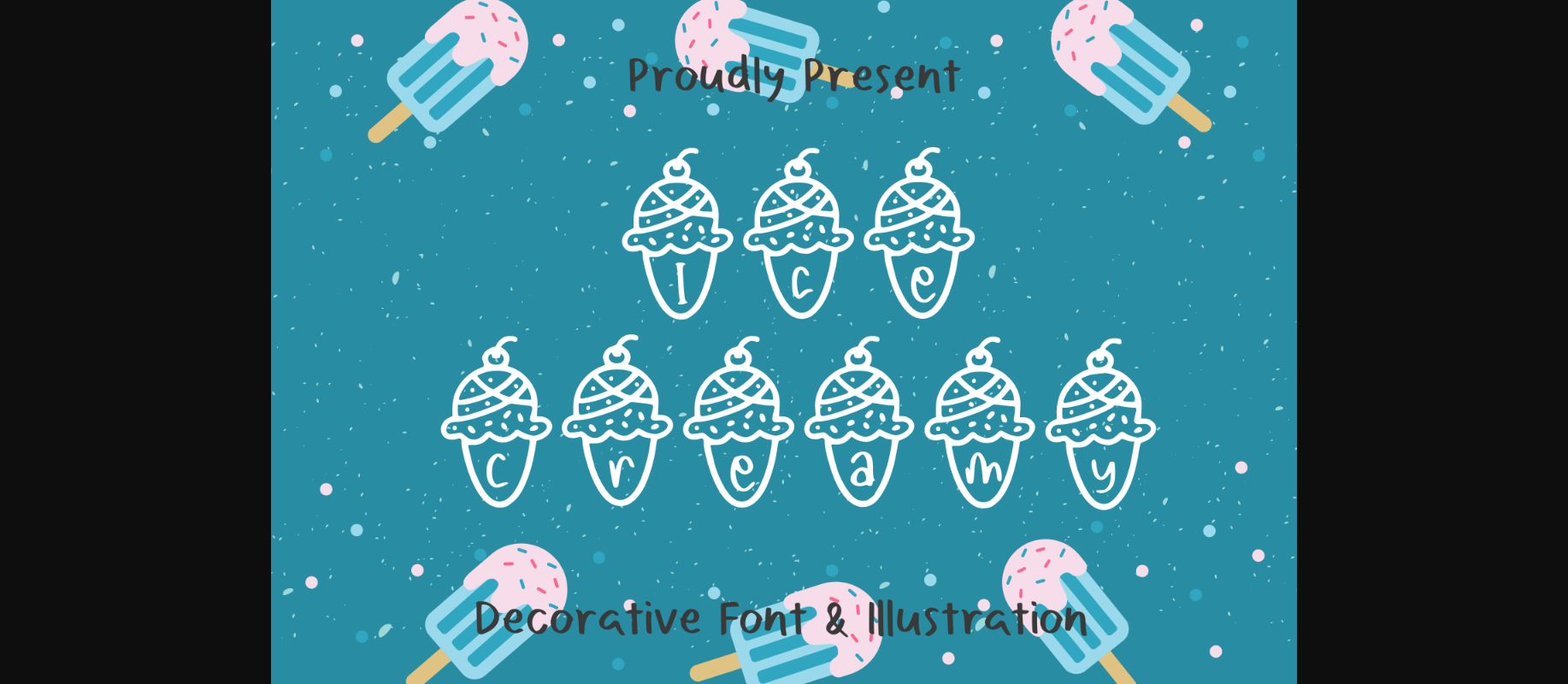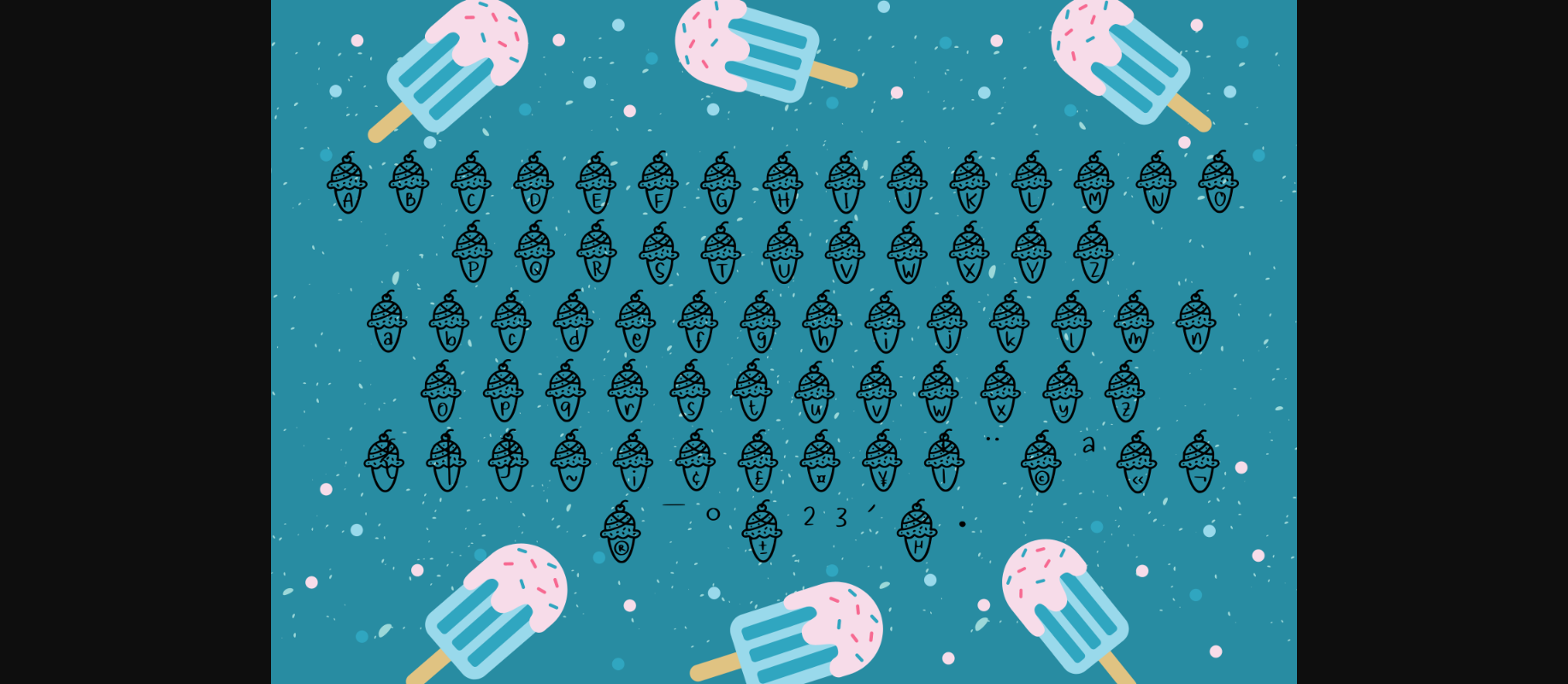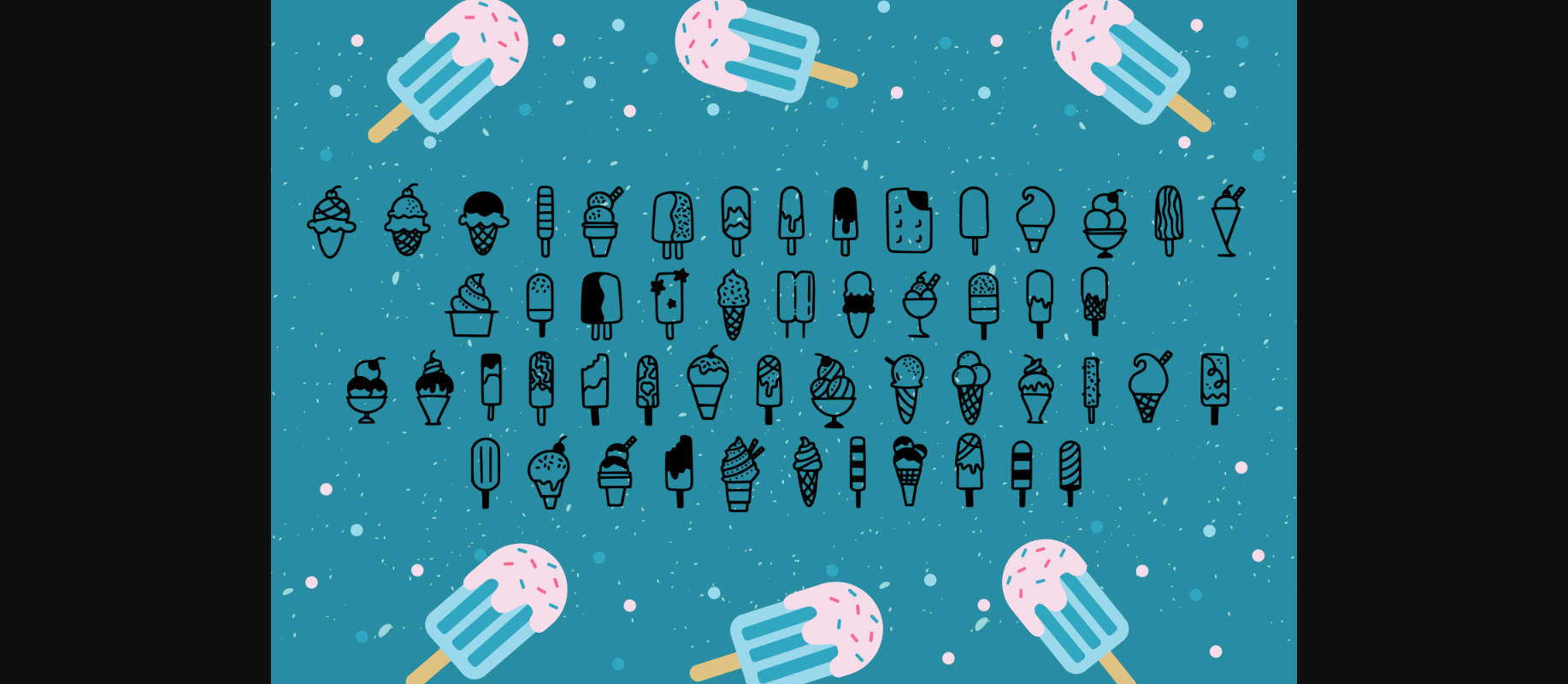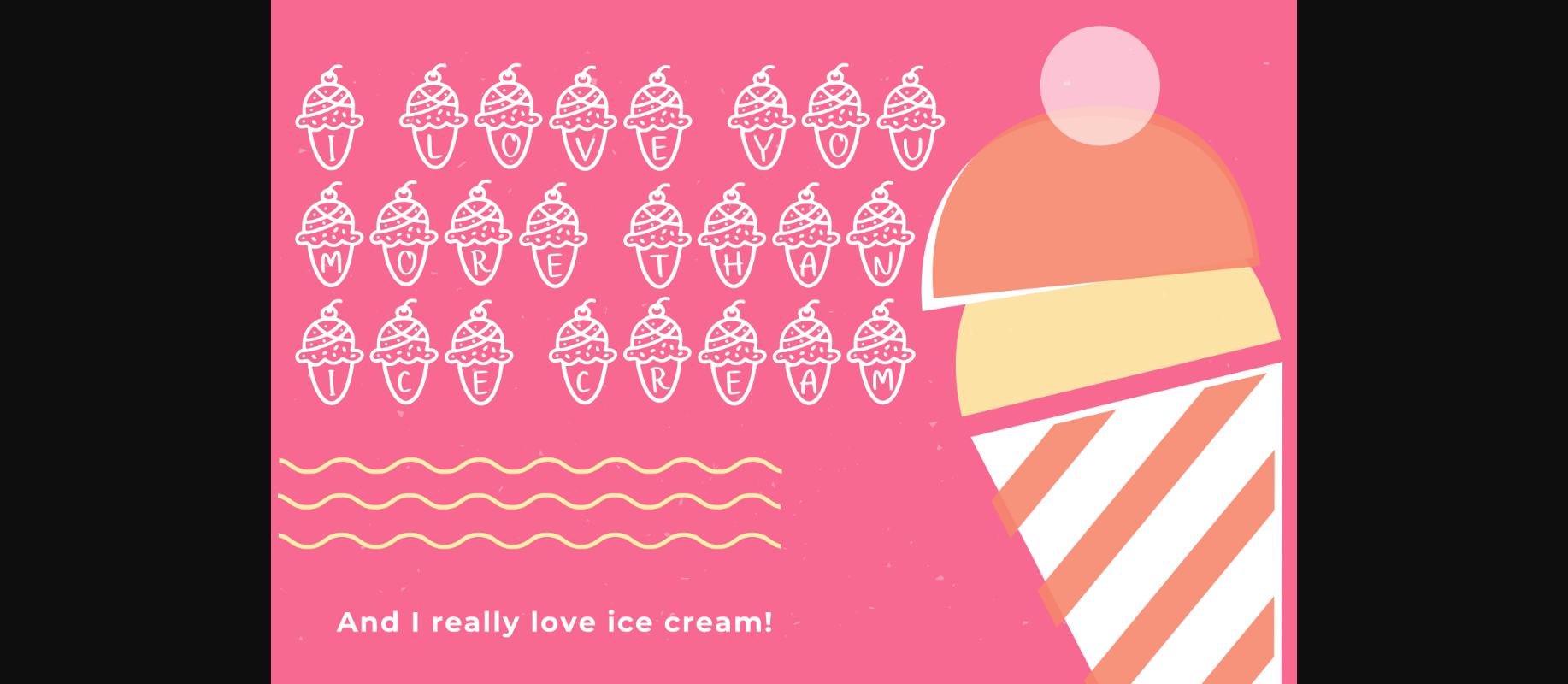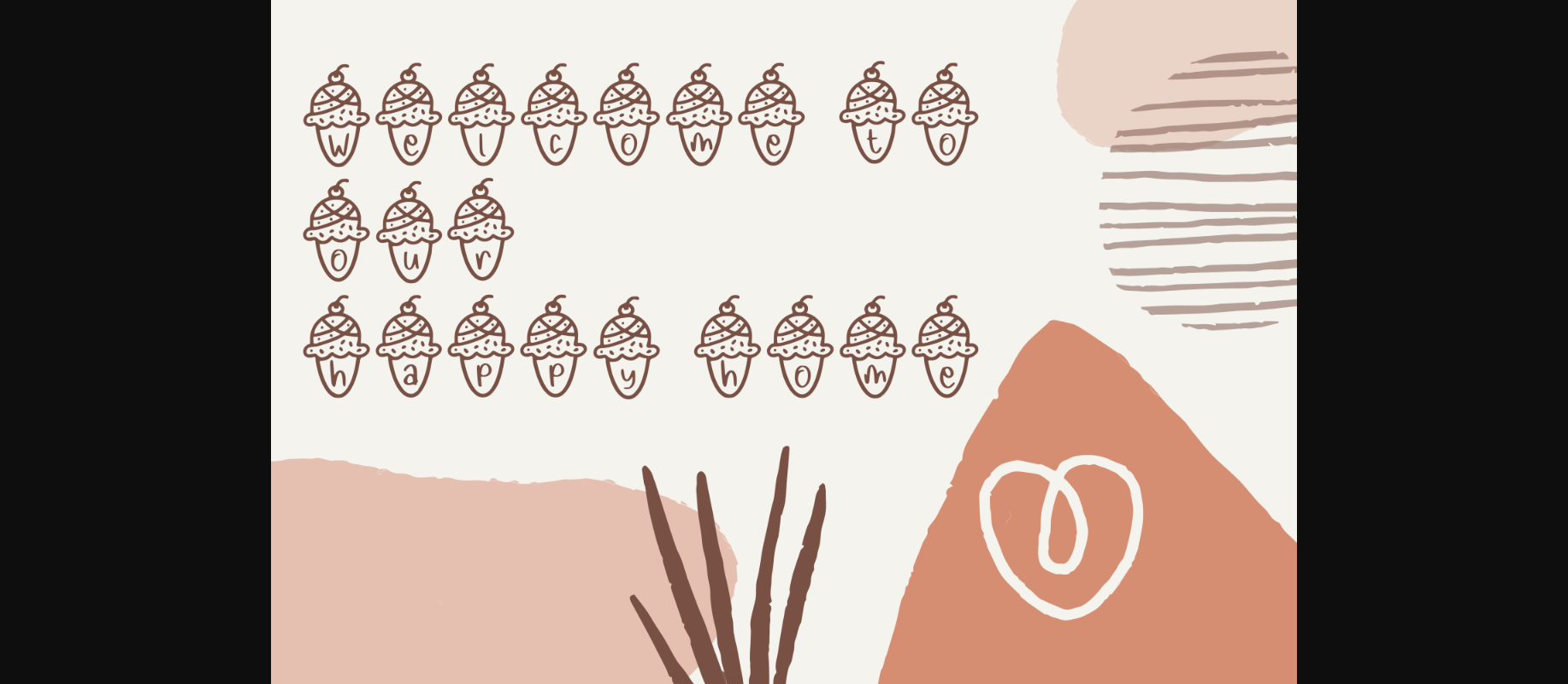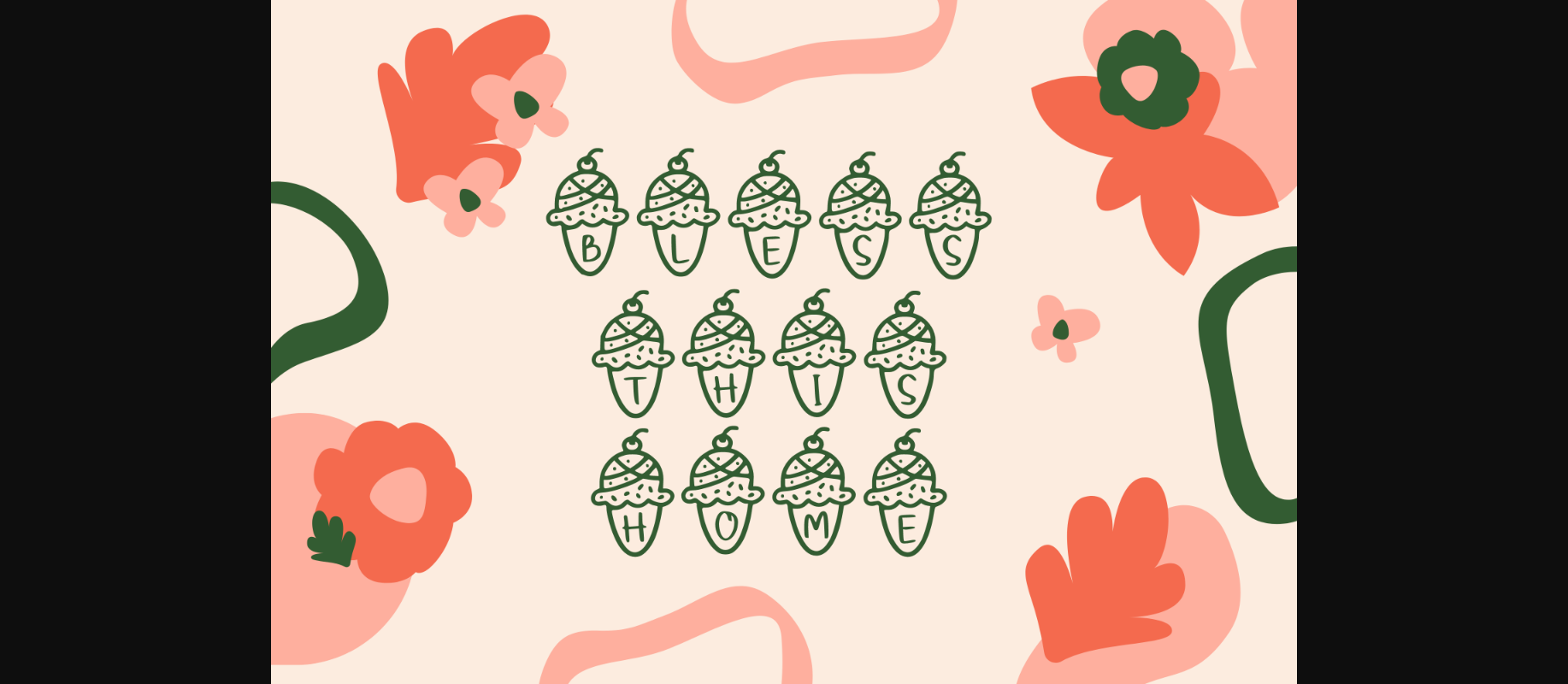
About Ice Creamy Font
Ice Creamy is a cute, fun and sweet decorative font. Add it to each of your summer party invitation, swimming gathering or pretty much any design that requires a touch of youth and joy.